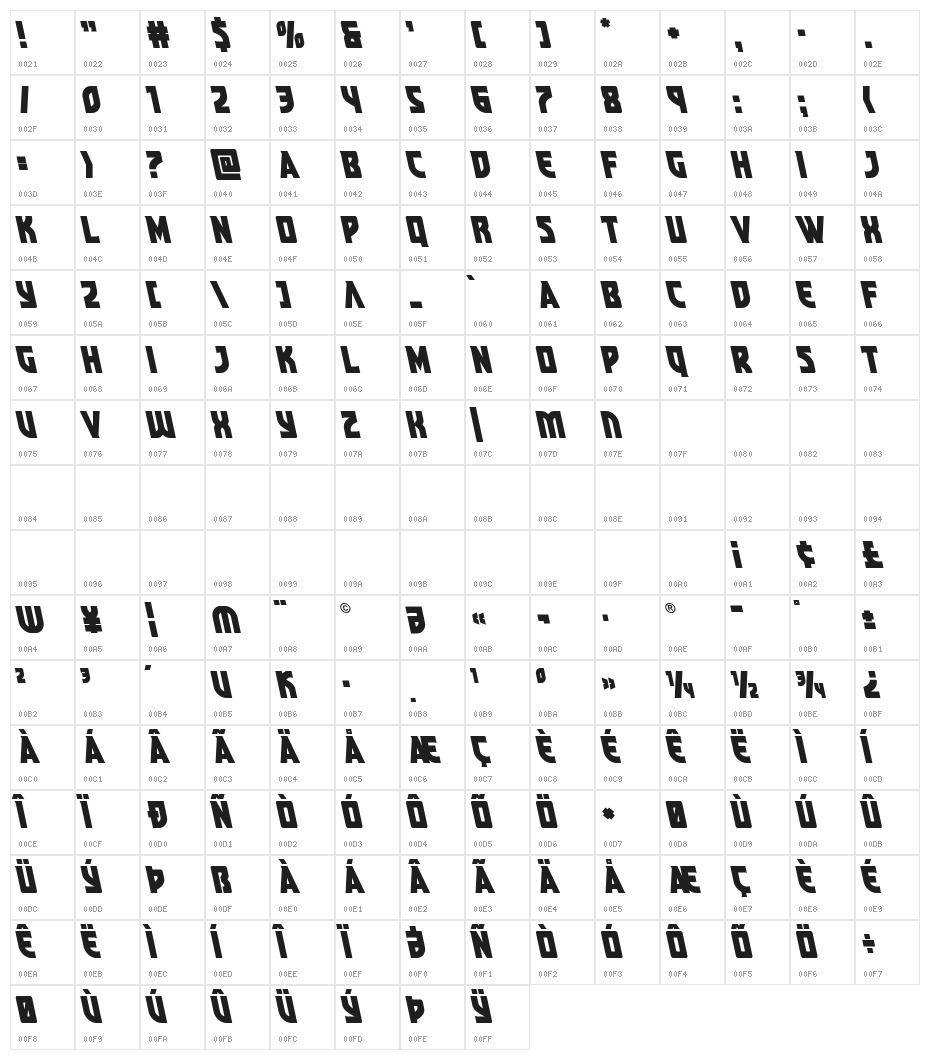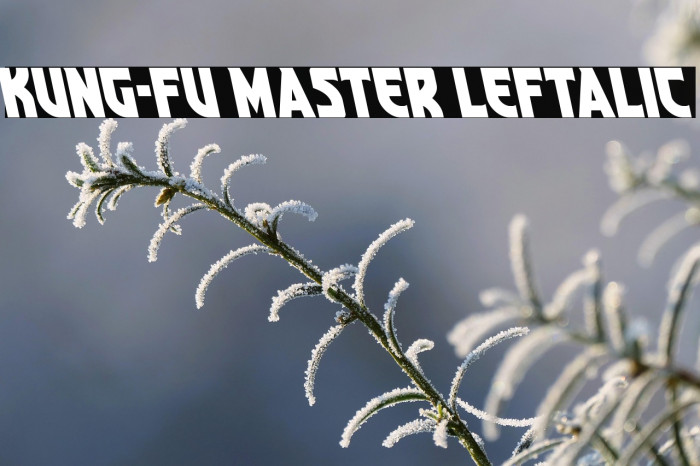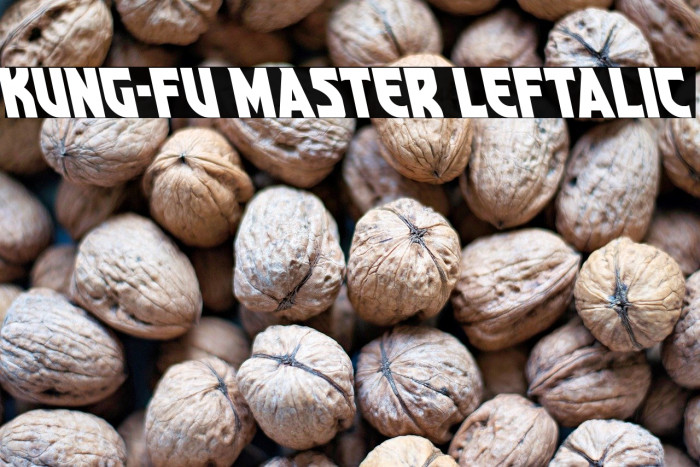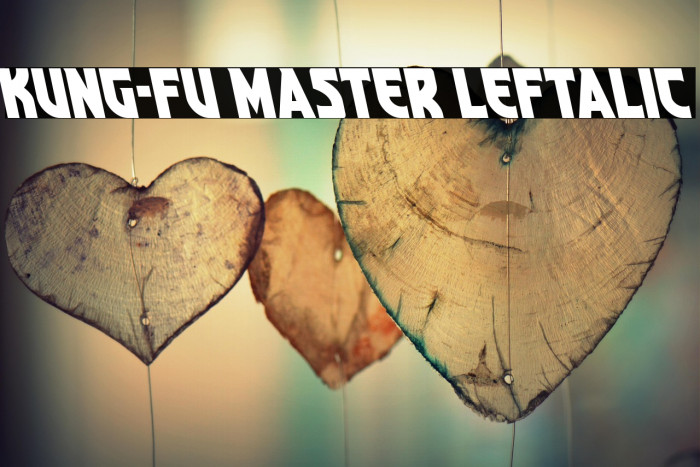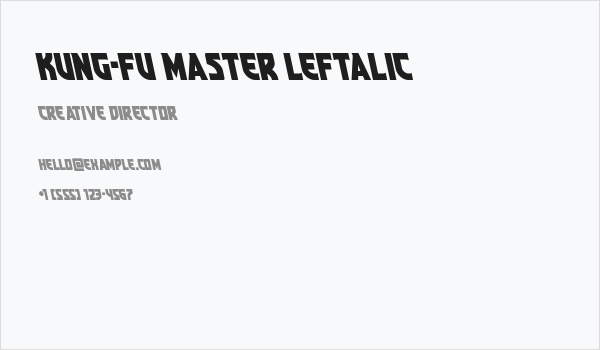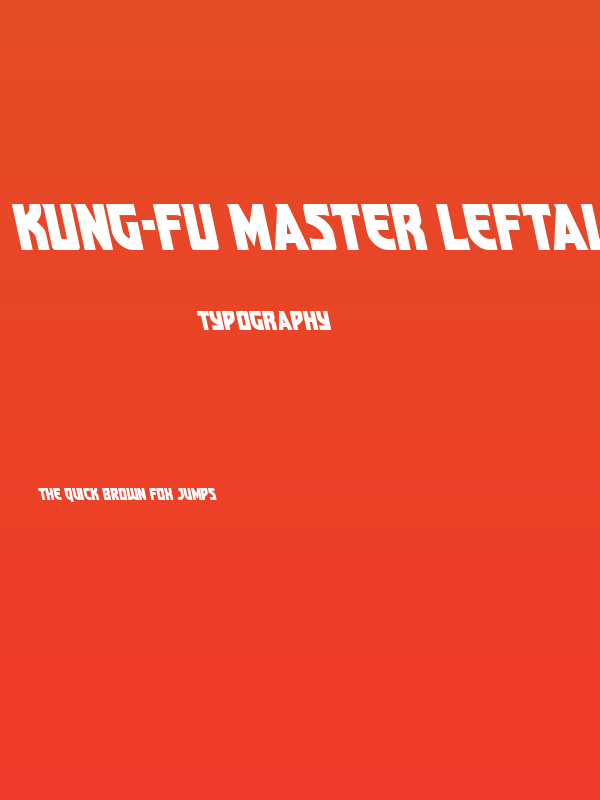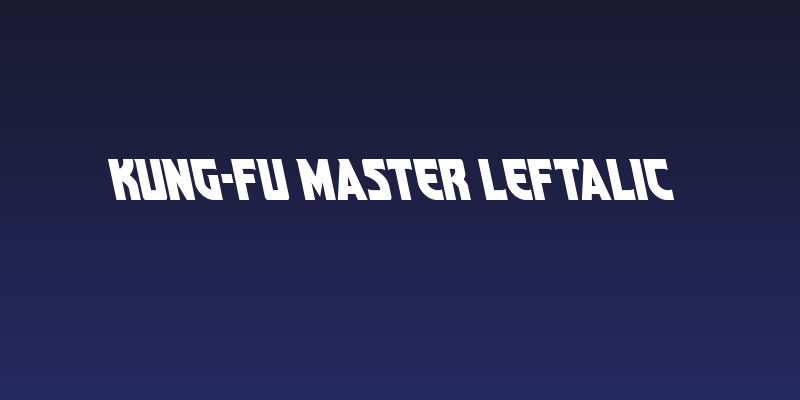
Kung-Fu Master Leftalic Font
Kung-Fu Master Leftalic Description
This font features a bold and dynamic style with a strong presence. The characters are sharply angled, giving a sense of movement and energy, reminiscent of martial arts themes. The uppercase and lowercase letters maintain a consistent weight, with a slightly condensed appearance. The numbers and special characters follow the same bold and angular design, ensuring a cohesive look across all elements. The font's unique style makes it stand out, suitable for projects that require a striking and impactful visual impression.